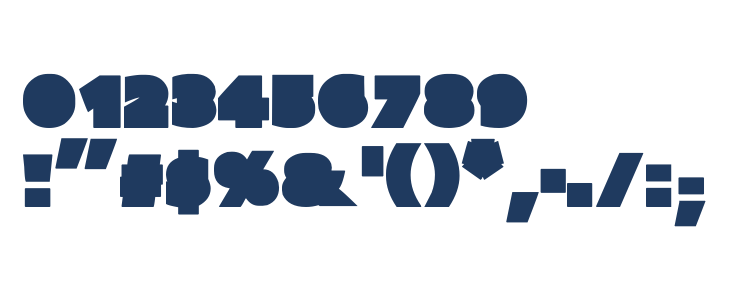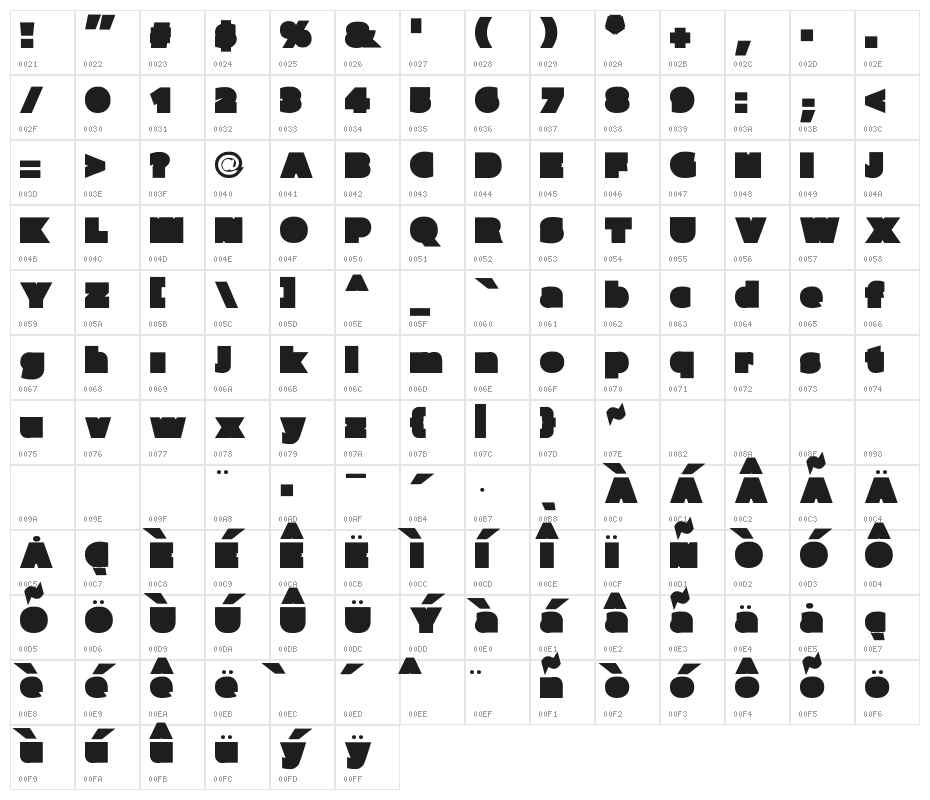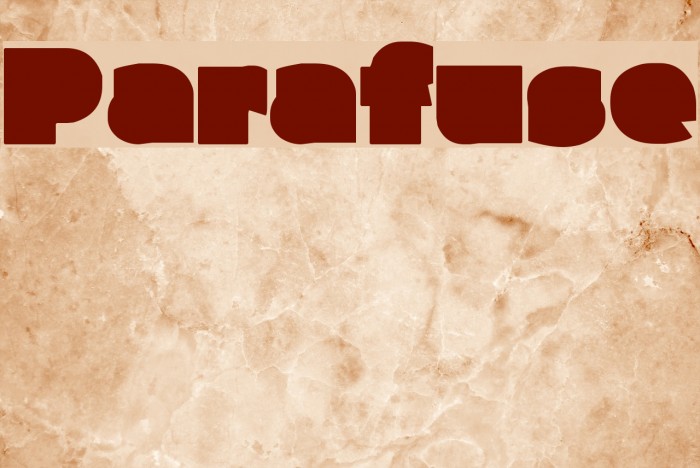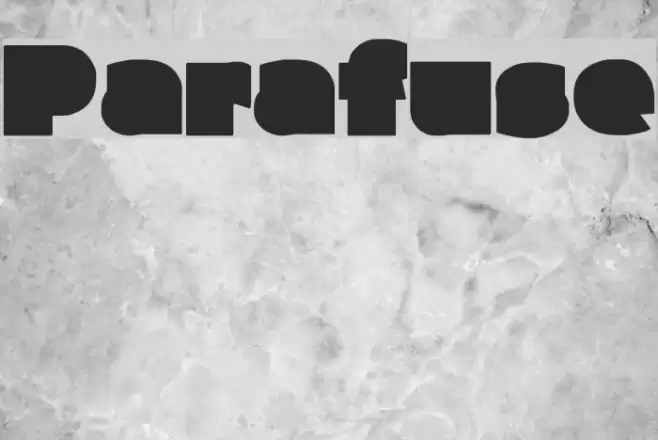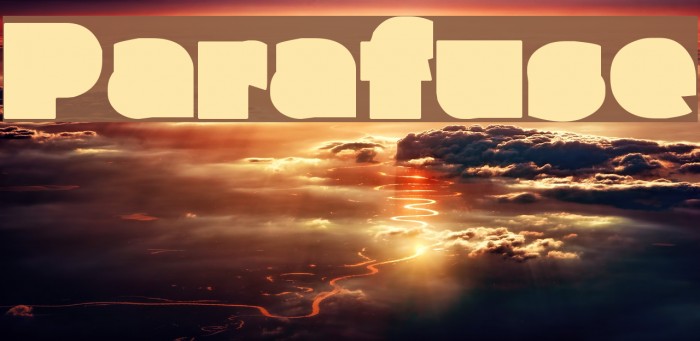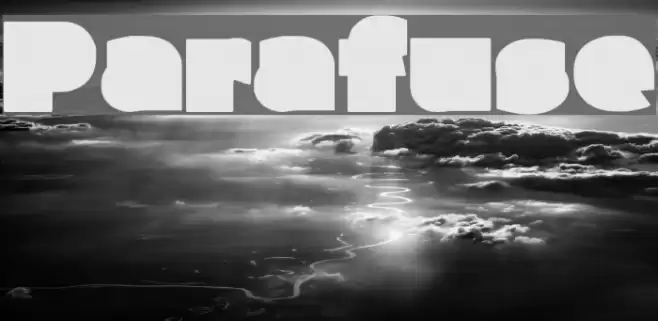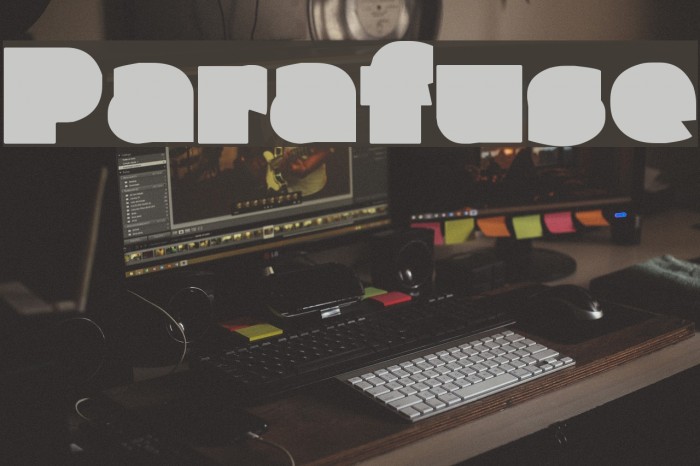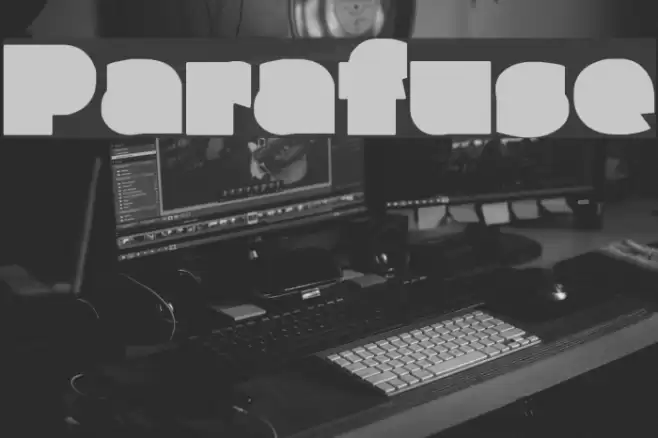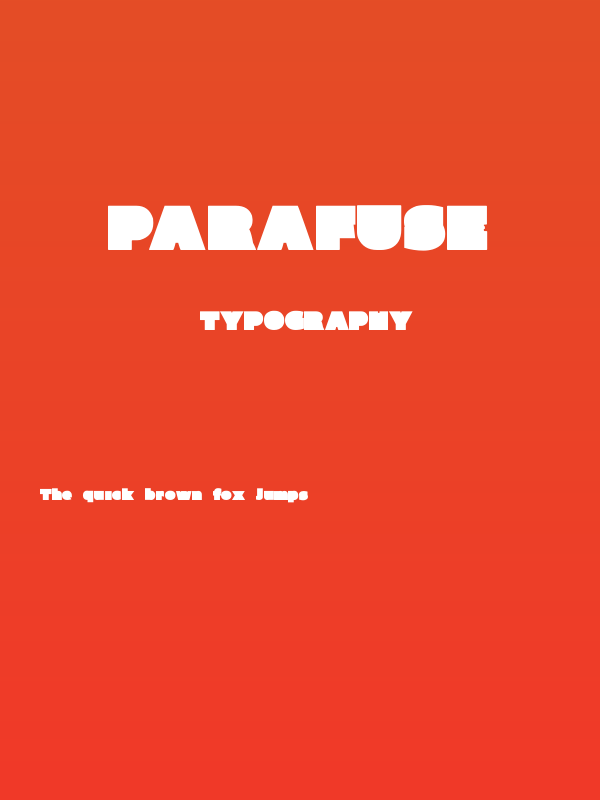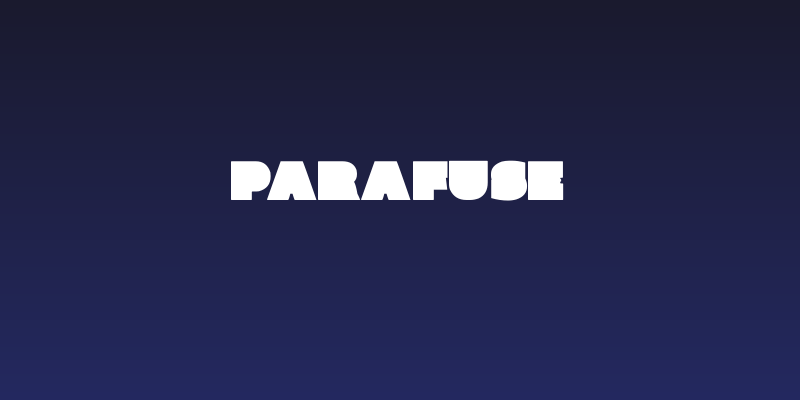
Parafuse Font
Parafuse Description
This font is a bold, geometric display typeface characterized by its heavy weight and strong presence. The letters are constructed with thick, block-like shapes, creating a sense of solidity and impact. The uppercase and lowercase letters maintain a consistent width, contributing to a uniform appearance. The numbers and special characters follow the same bold and geometric style, ensuring cohesion across all elements. The font's design is modern and eye-catching, making it suitable for attention-grabbing headlines and logos.
| Proposed Projects | Ideal for branding, poster design, headlines, and any project requiring a bold statement. |